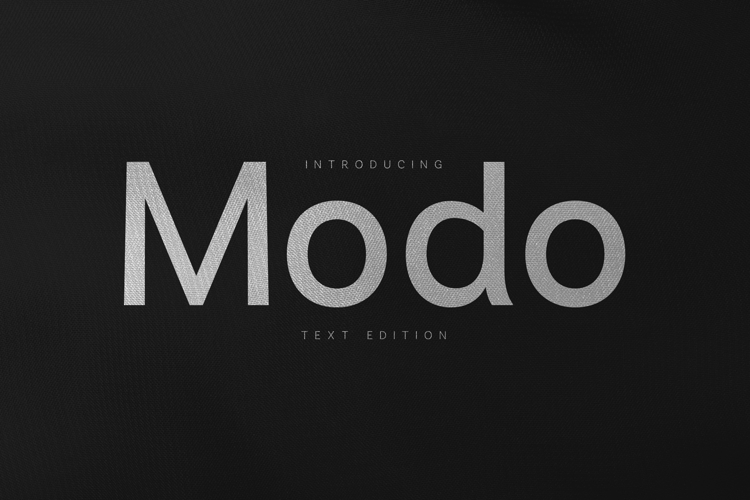
Modo Modern Minimal Sans Serif Font
Modo is a modern minimal sans serif font designed for clean typography, contemporary branding, and editorial layouts. With balanced proportions, smooth curves, and excellent readability, Modo works perfectly for headlines, logos, posters, websites, UI design, packaging, and social media graphics.
The font includes uppercase and lowercase letters, numerals, punctuation, and extended language support, making it suitable for both professional and creative projects. Its subtle, refined character makes it ideal for modern design systems where clarity and elegance matter.
• Uppercase & lowercase letters
• Numbers & punctuation
Modo is built for designers who value simplicity, structure, and timeless aesthetics.